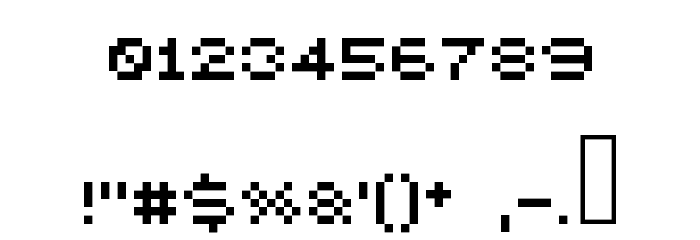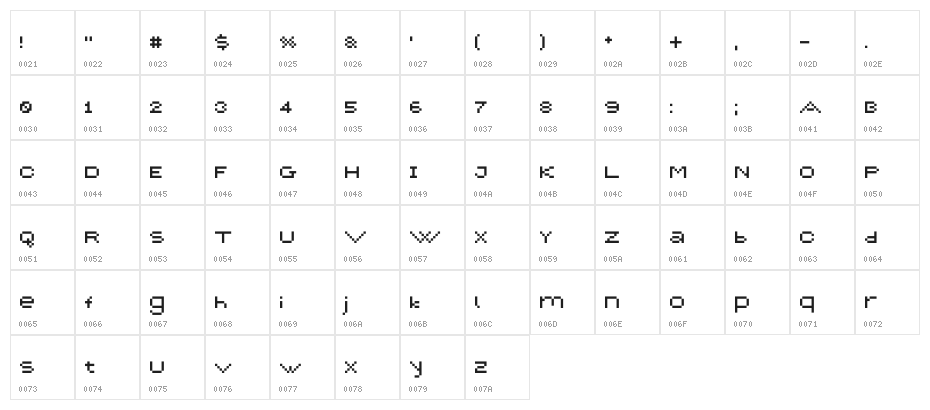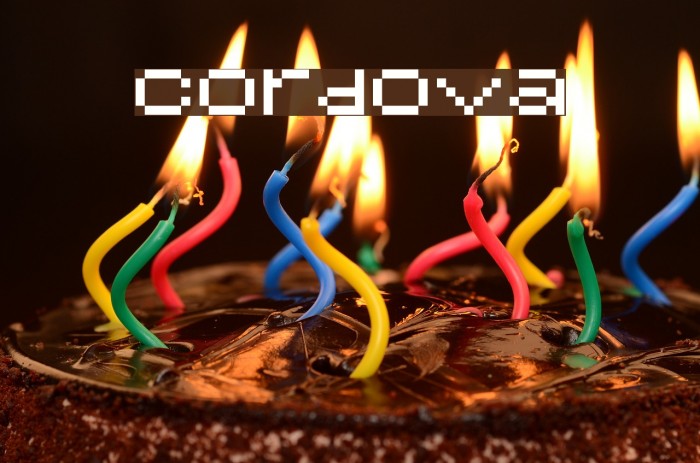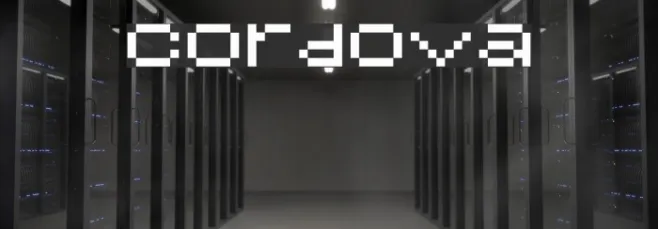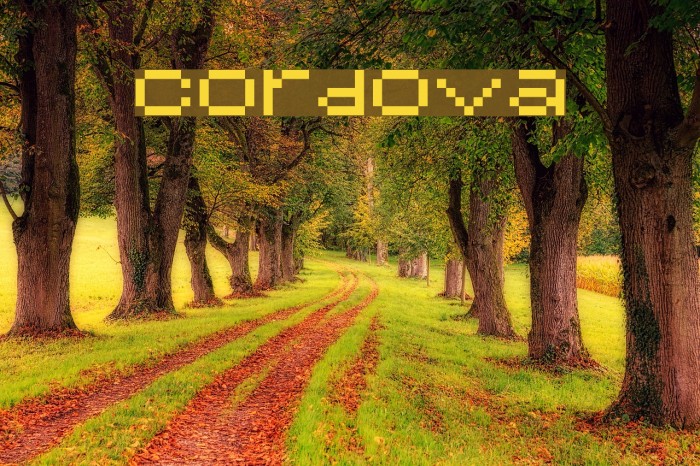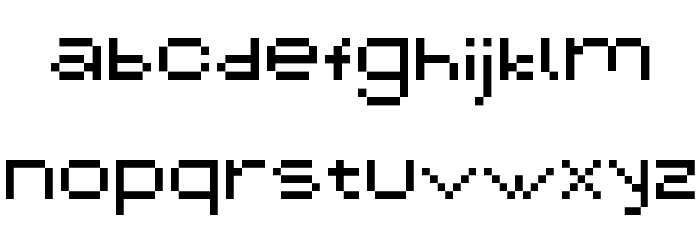
Cordova Font
Cordova Description
This font features a pixelated, blocky design reminiscent of early digital displays and retro video games. Each character is constructed with a grid-like precision, giving it a distinctly digital and geometric appearance. The uppercase and lowercase letters maintain a consistent height, contributing to a uniform look across the text. Numbers and special characters follow the same pixelated style, ensuring a cohesive visual theme. The font's simplicity and clarity make it ideal for digital displays, gaming interfaces, and any project seeking a nostalgic, tech-inspired aesthetic.
| Use Case | Logos, Headlines, Digital displays |
| Proposed Projects | Ideal for retro video games, digital displays, tech-themed designs, and nostalgic branding. |